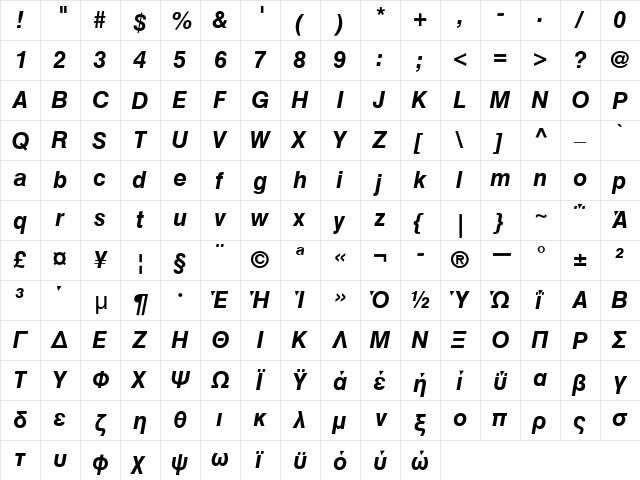
HelveticaGreek Upright Bold Italic
Design Context for HelveticaGreek Upright Typeface
HelveticaGreek Upright offers clean, dependable letterforms without strong stylistic allegiance, making it a practical choice for designers who need flexibility. Its italic angle brings a sense of urgency and motion to the letterforms. Its bold stroke weight gives it real presence on the page.
Pro Tip: Use HelveticaGreek Upright for emphasis, pull quotes, and subheadings where its slanted energy can add rhythm to the layout.